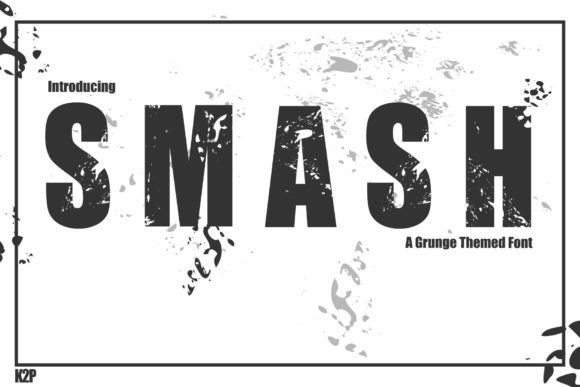
Unleash Your Creativity with Smash Font: The Ultimate Expression of Boldness and Energy in Typography
Smash Font, a remarkable creation by KtwoP, is not just a font; it's a gateway to a world of captivating designs. This bold, rough-textured, and assertive display font exudes an energy that demands attention. Its unique characteristics make it the perfect choice for designers seeking to make a statement with their work.
Smash Font's rugged texture adds a layer of depth and dimension to your designs, evoking a sense of raw power and unyielding determination. It's a font that commands attention, whether used for T-shirt quotes, posters, branding, or any other project that demands impact.
With Smash Font at your disposal, you can effortlessly create designs that resonate with your audience. Its versatility extends beyond traditional mediums, as it also shines in digital spaces. Imagine your website headlines, social media posts, and marketing materials leaping off the screen, capturing the attention of your audience and leaving a lasting impression.
Smash Font is more than just a collection of letters; it's an invitation to explore the limitless possibilities of visual communication. Its rough edges and bold strokes ignite the imagination, encouraging you to think outside the box and push the boundaries of creativity. Whether you're a seasoned designer or just starting, Smash Font will empower you to create designs that leave an indelible mark.
Discover the endless variations of Smash Font and let your creativity soar. Its rugged texture and assertive presence will transform your designs into powerful expressions of your vision. Smash Font is the key to unlocking a world of captivating design possibilities. Embrace its boldness, harness its energy, and witness the transformation of your creative endeavors.